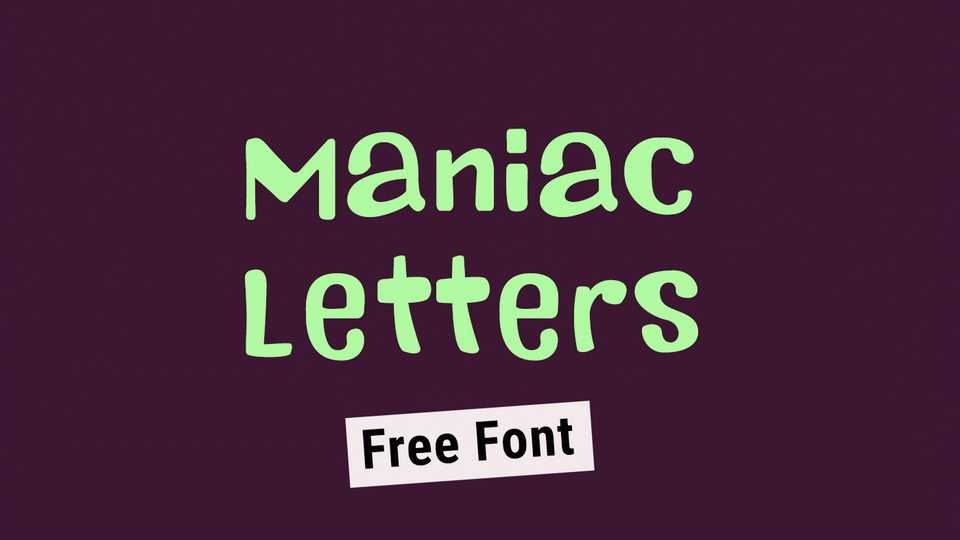
Download Maniac Letters font, a fun and playful hand crafted typeface based on the retro adventure game “day of the tentacle”. Maniac Letters font is perfect for crafts, kids products, games, posters and other creative projects.